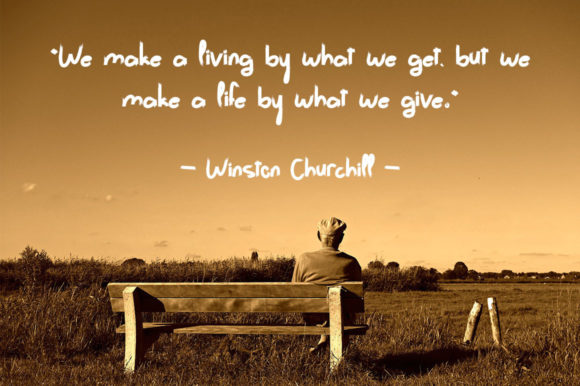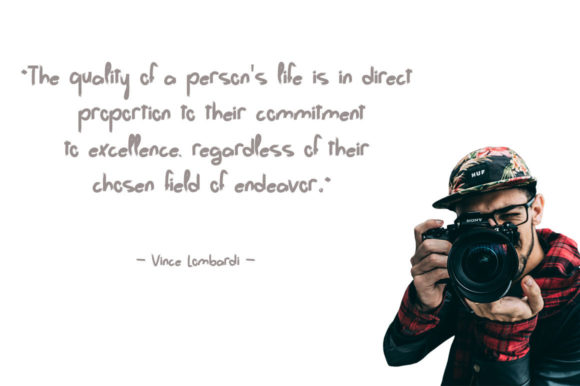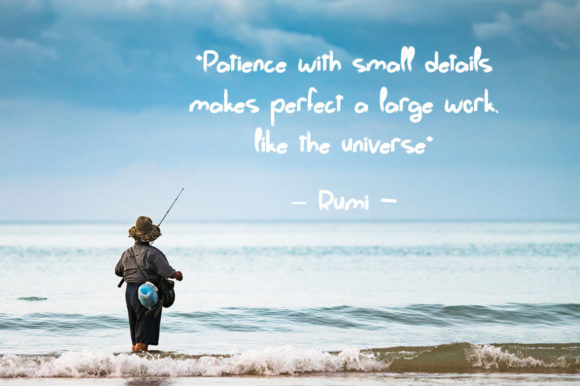
Introduction to Brush King Font
Brush King is a cool, brushed and natural display font.
It can be added to a variety of casual designs such as t-shirts, sportswear, logos, advertisements, clothing, and more .
Why Choose Brush King Font?
Brush King Font offers exceptional quality and versatility, making it a valuable addition to your design toolkit. Whether you’re creating for personal projects or commercial use, Brush King Font delivers professional results.